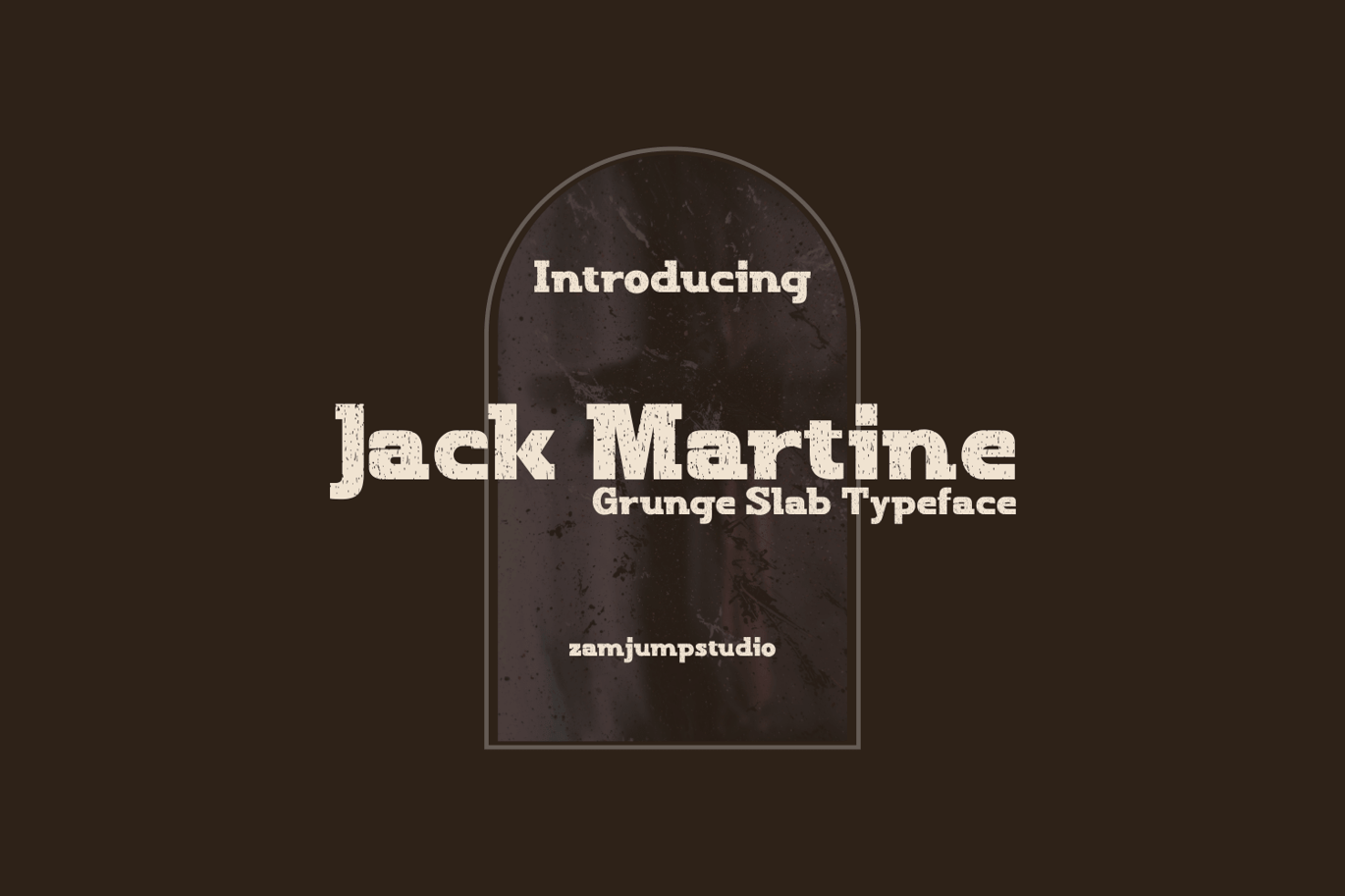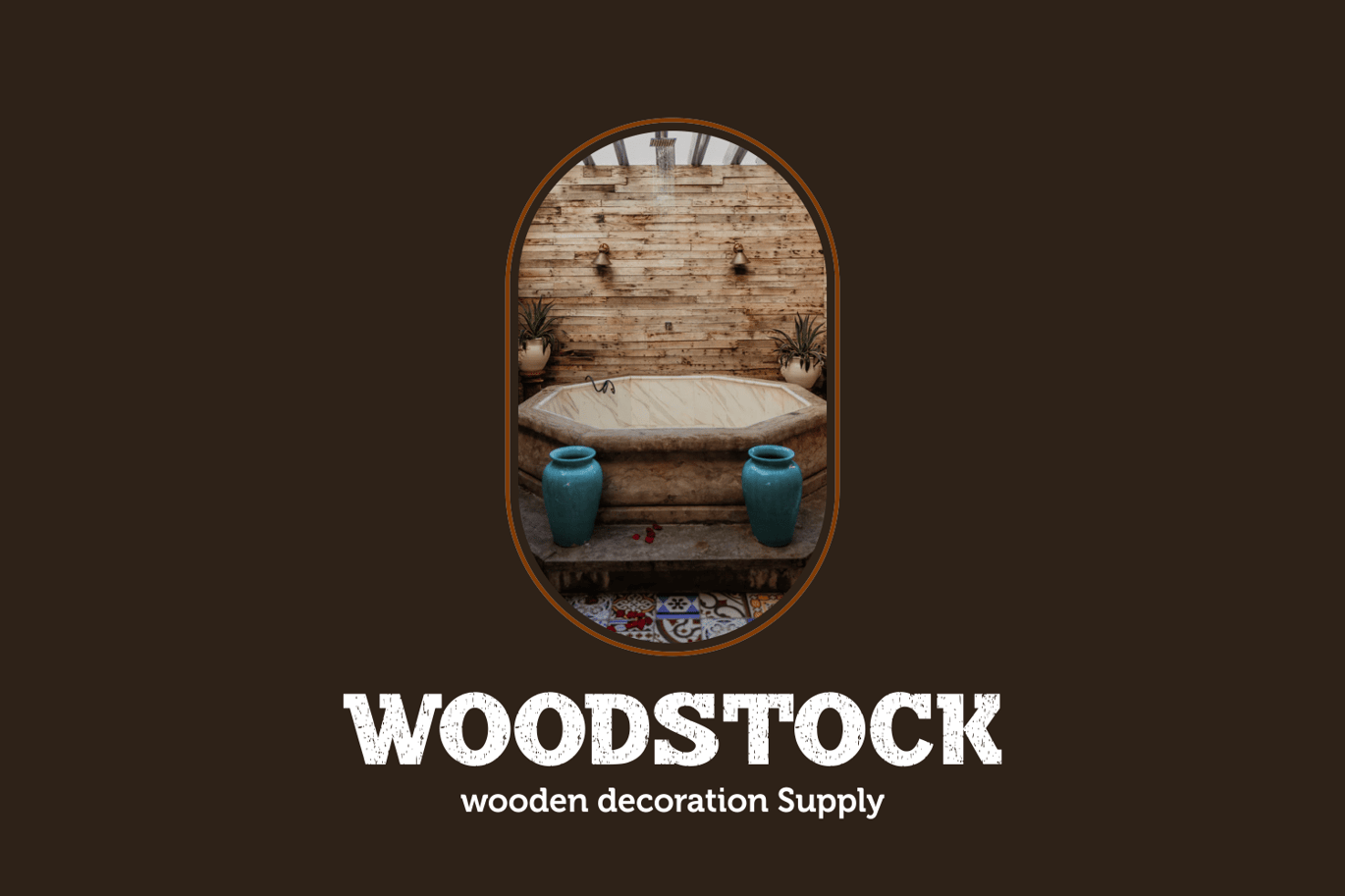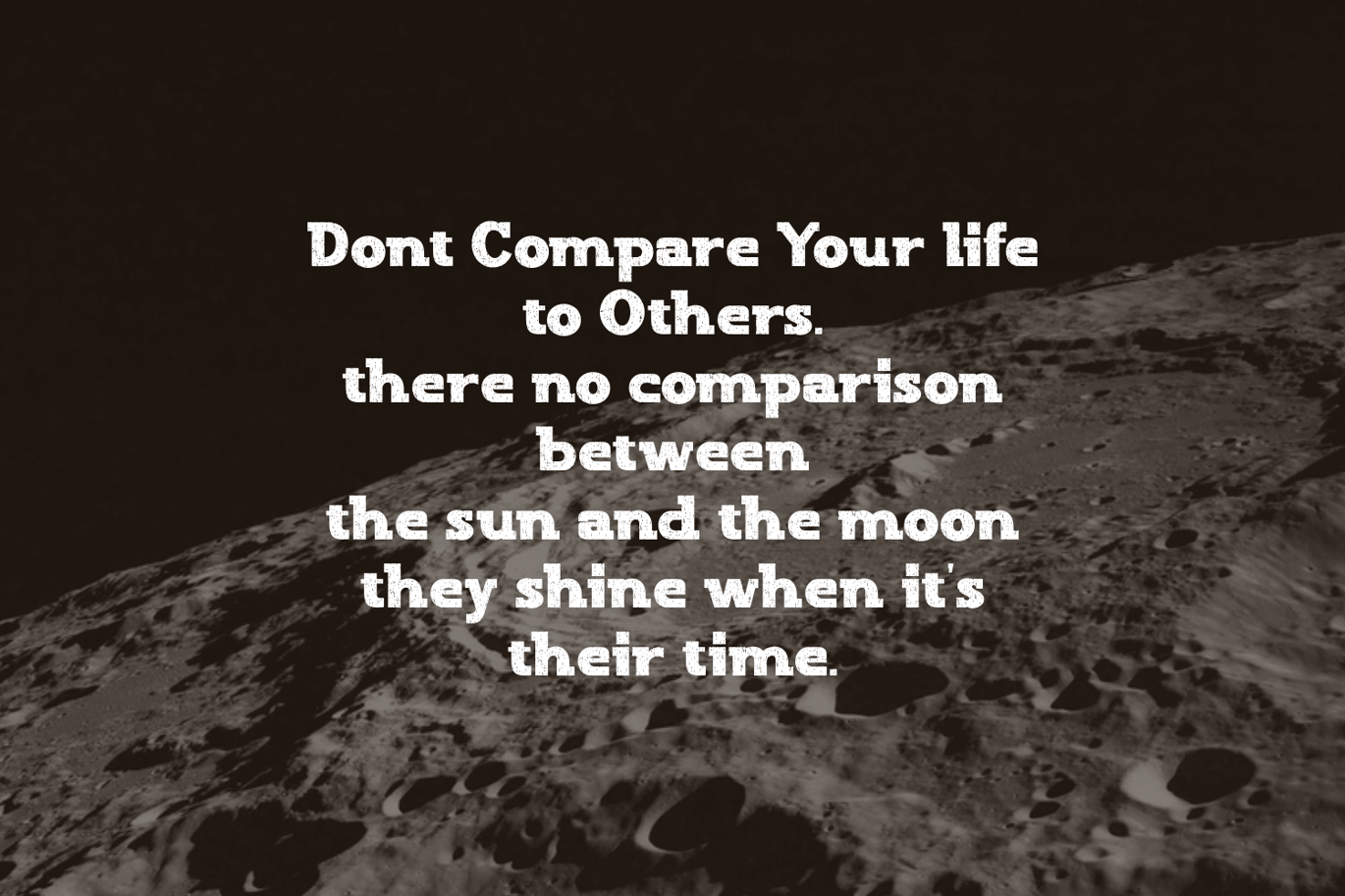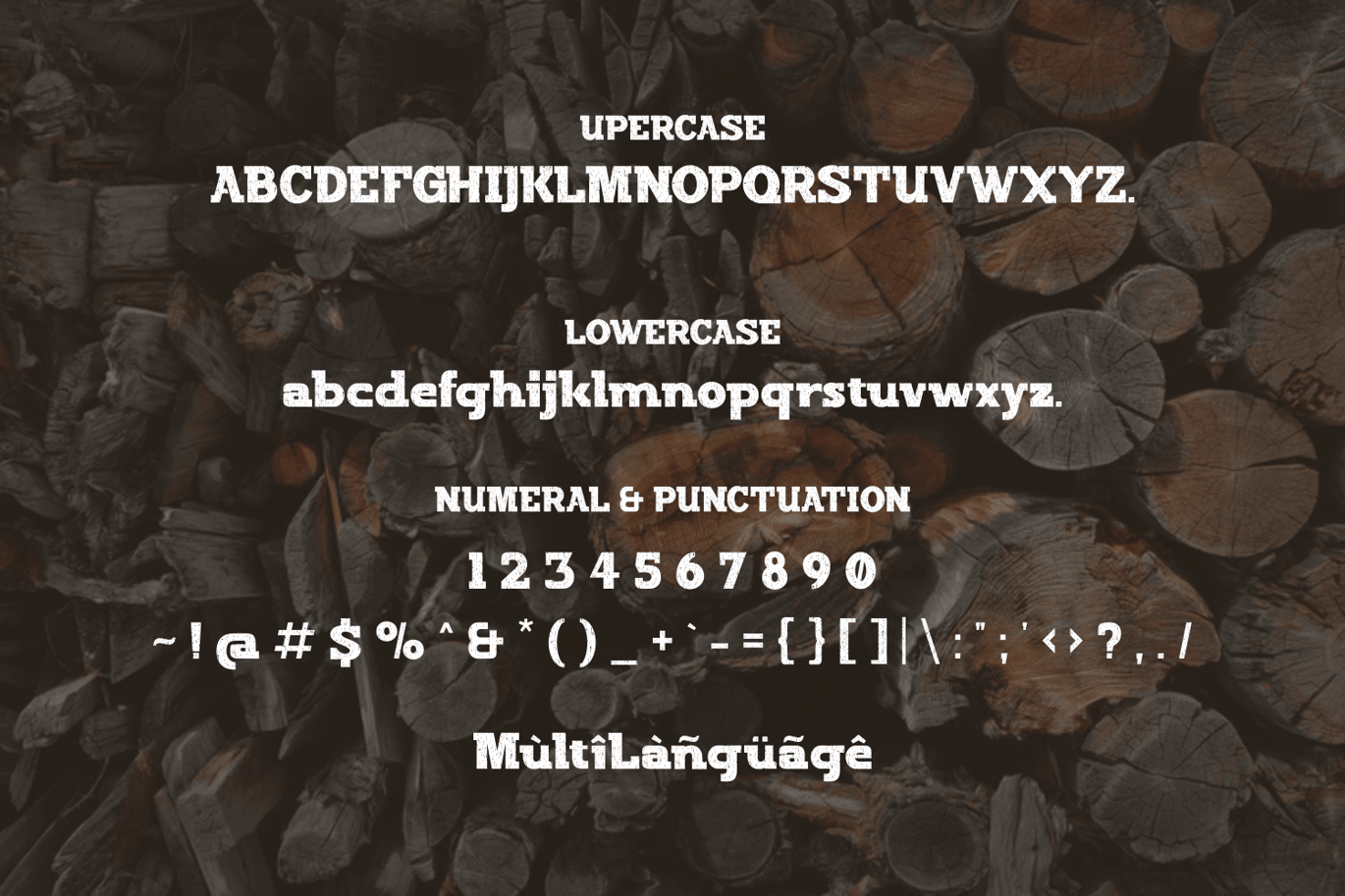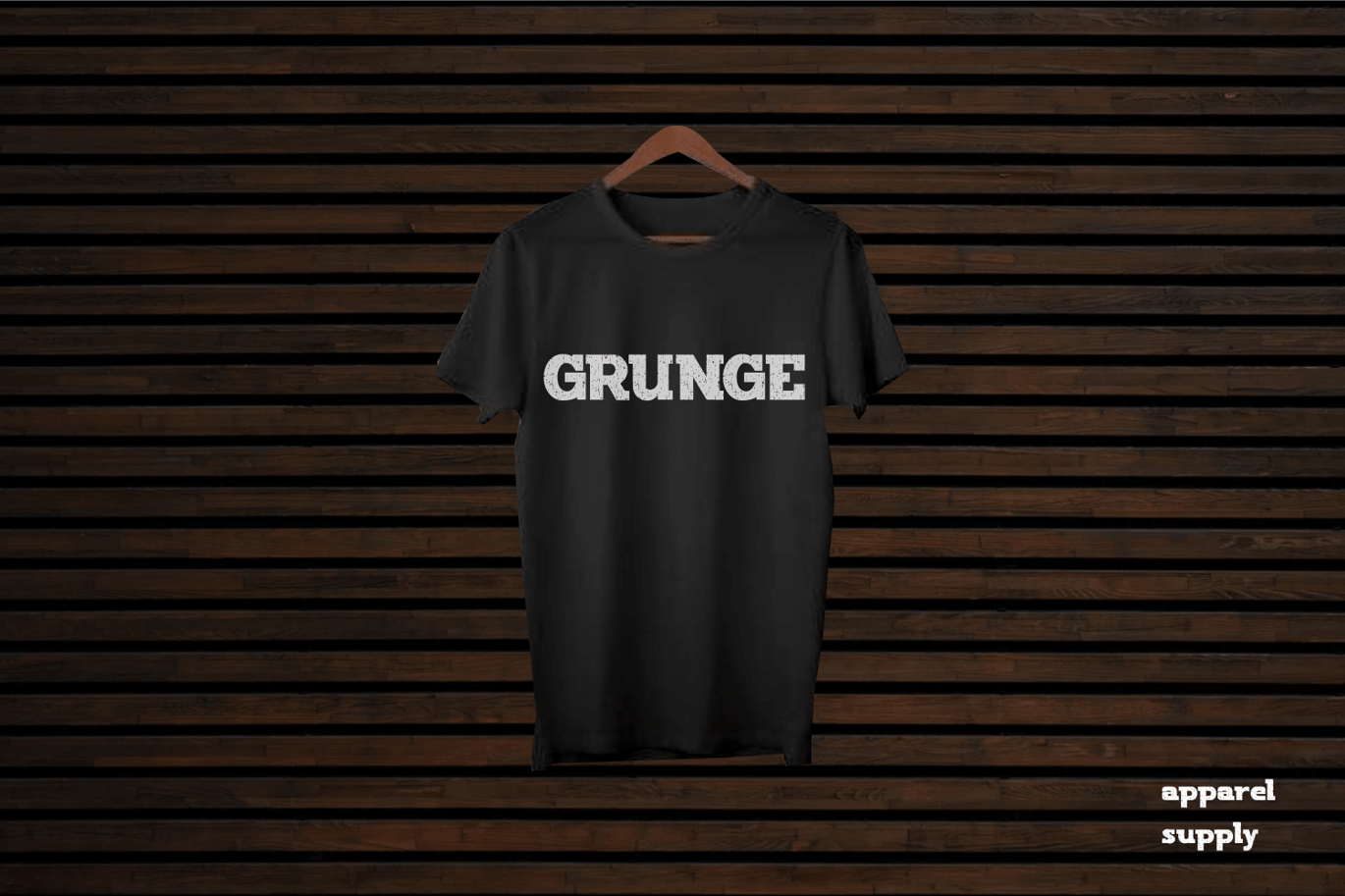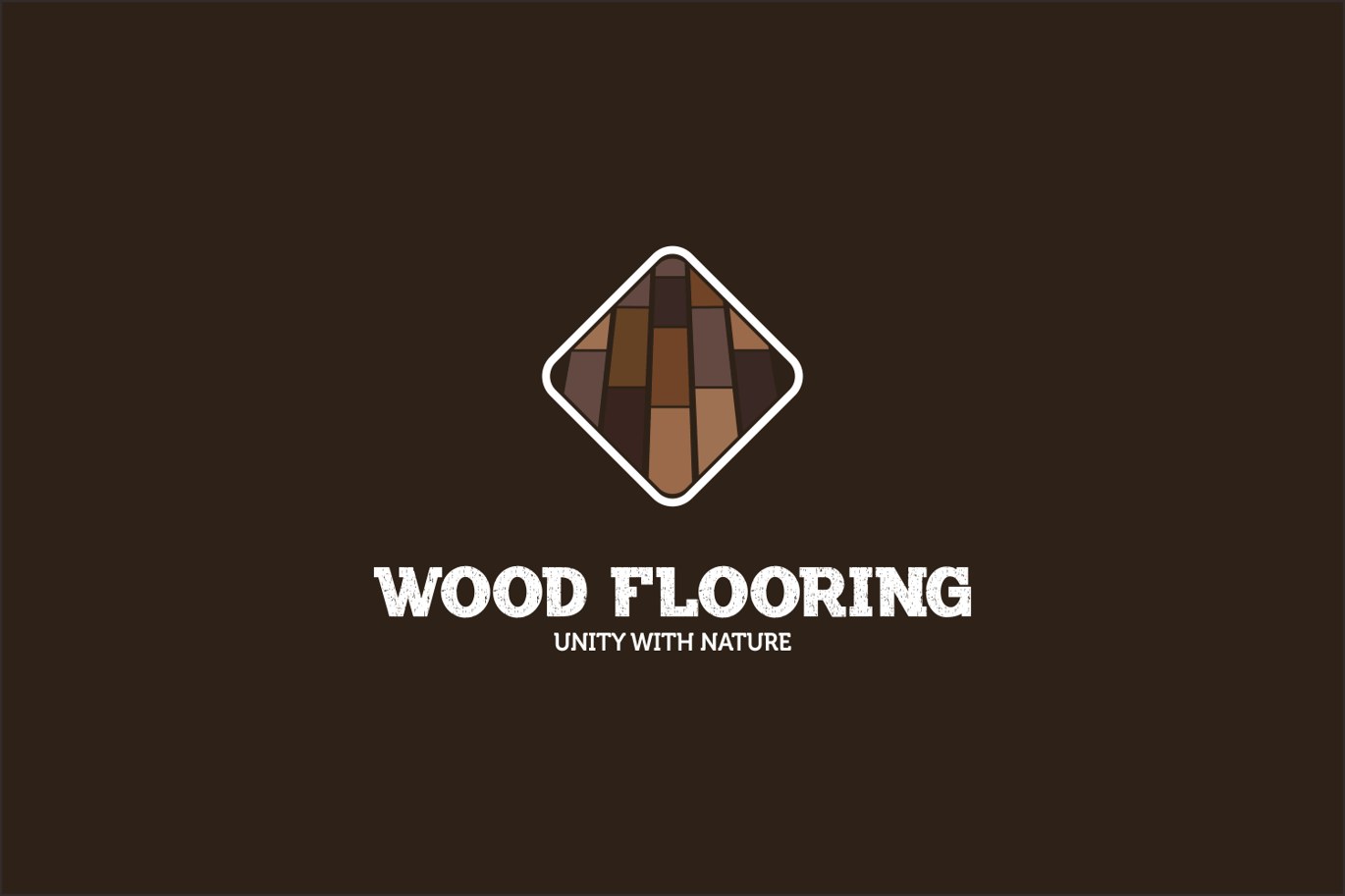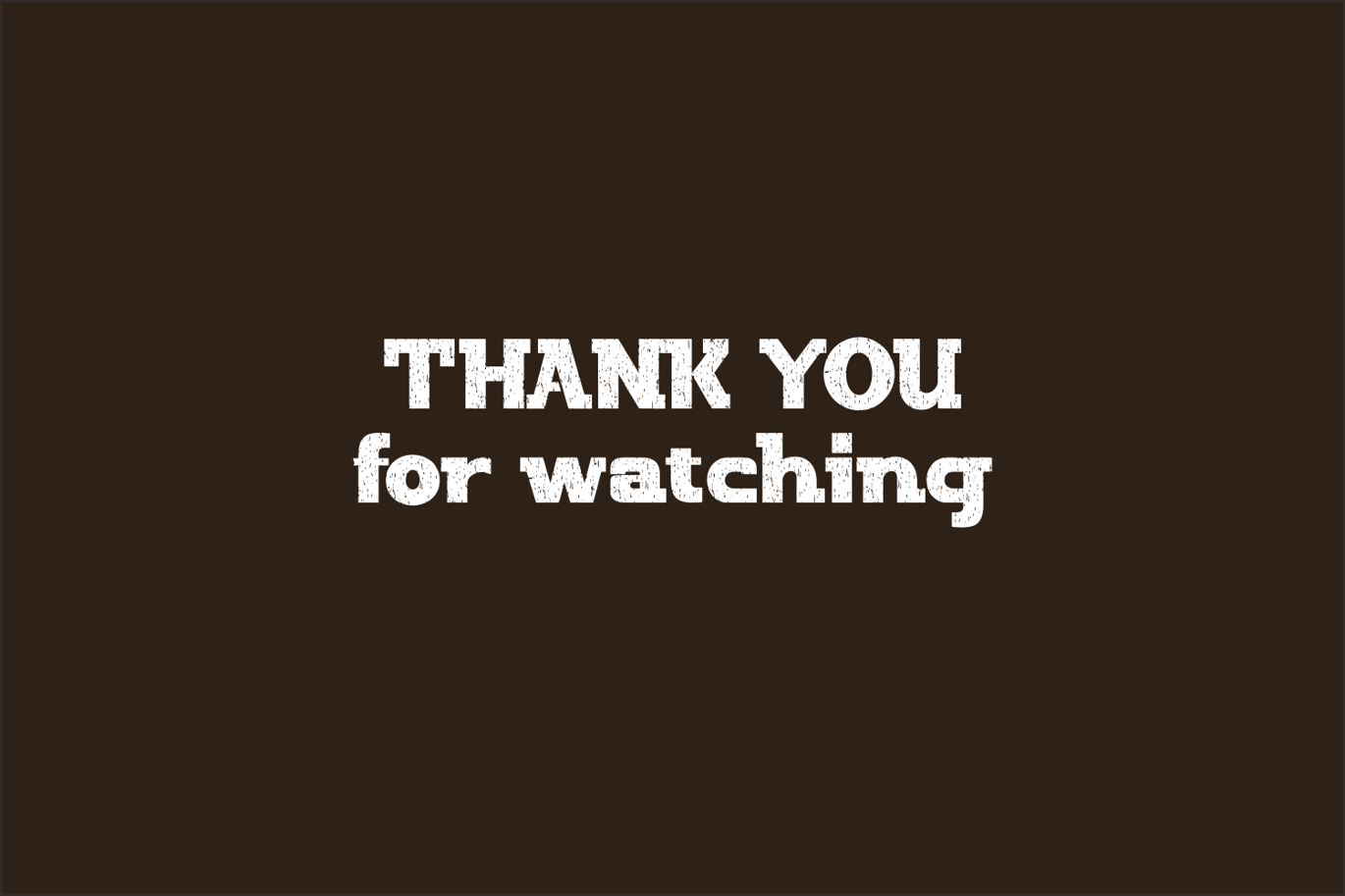
Jack Martine – a Textured Grunge Slab Font
Jack Martine is a textured, hand-drawn slab font in a regular style with upper and lowercase letters and solid proportions that works great for a variety of display uses.
Carefully drawn for quality and legibility, but still rough enough to show handcrafted details. Jack Martine is great for display, branding, packaging, advertising, food, sports, titles and more.
Jack Martine Features:
Regular Style
Different uppercase and lowercase characters Simply switch between upper and lower case for alternatives Hand-drawn details and textures Extensive multilingual character support This font has broad Latin support for Western, Central, and Southeastern Europe.
Numbers
Punctuation
Symbols
multilingual support